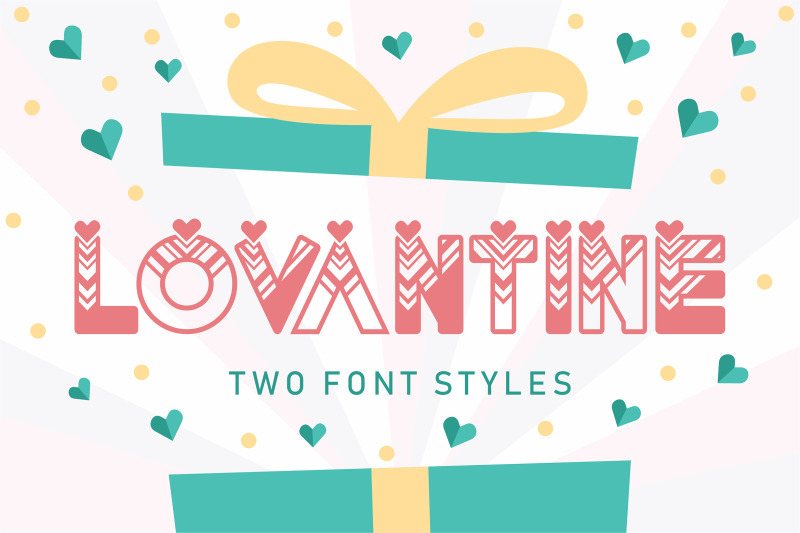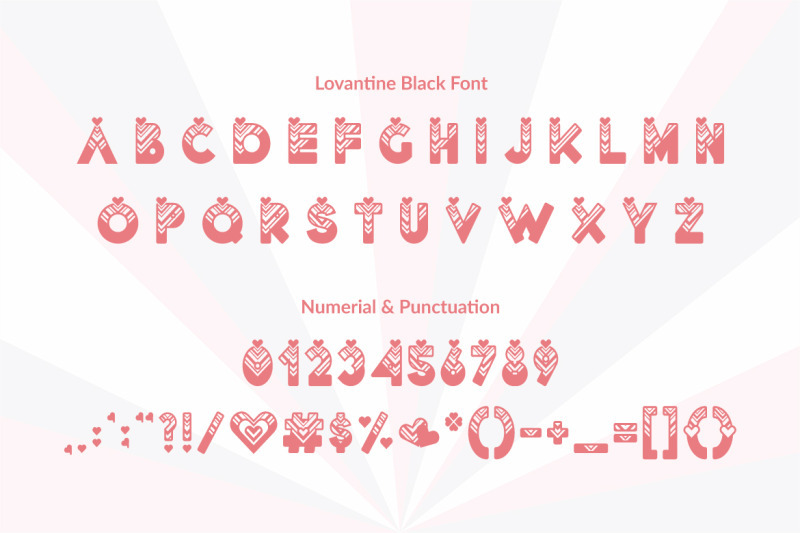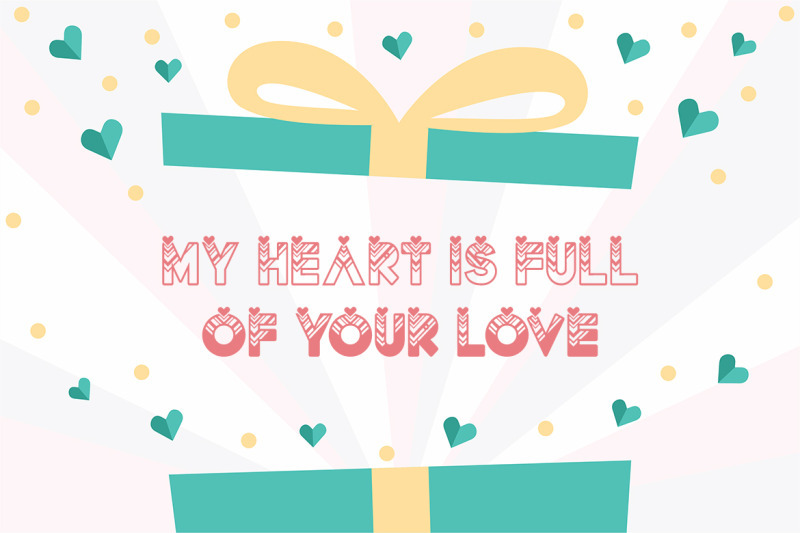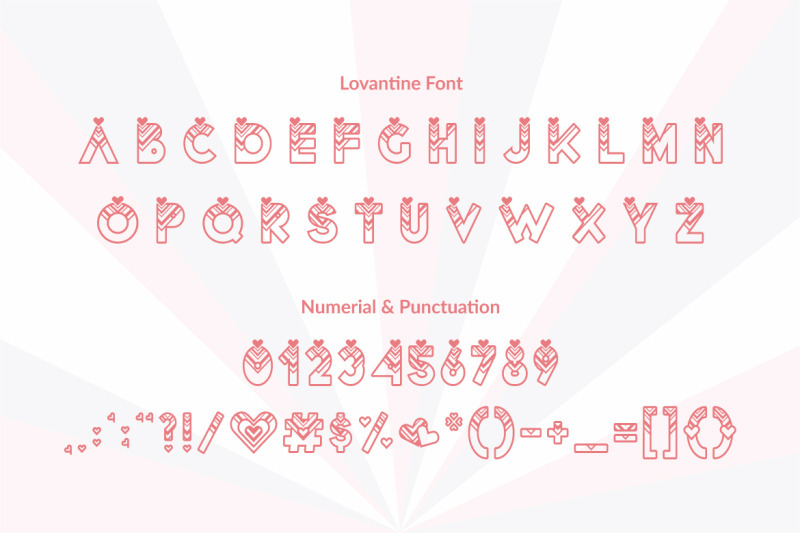
Another love themed Freebie is here! Presenting FREE Lovantine Font! Lovantine is a beautiful decorative font with unique decorative hearts on each letter! This elegant font includes two variations; regular and black, with it coming in OTF, TTF, and WOFF formats! This lovely freebie is brought to you by Orenari! Only available for a week! Don't forget to tag your creation @TheHungryJPEG on Instagram and get a chance to be featured!
FREE Lovantine Font